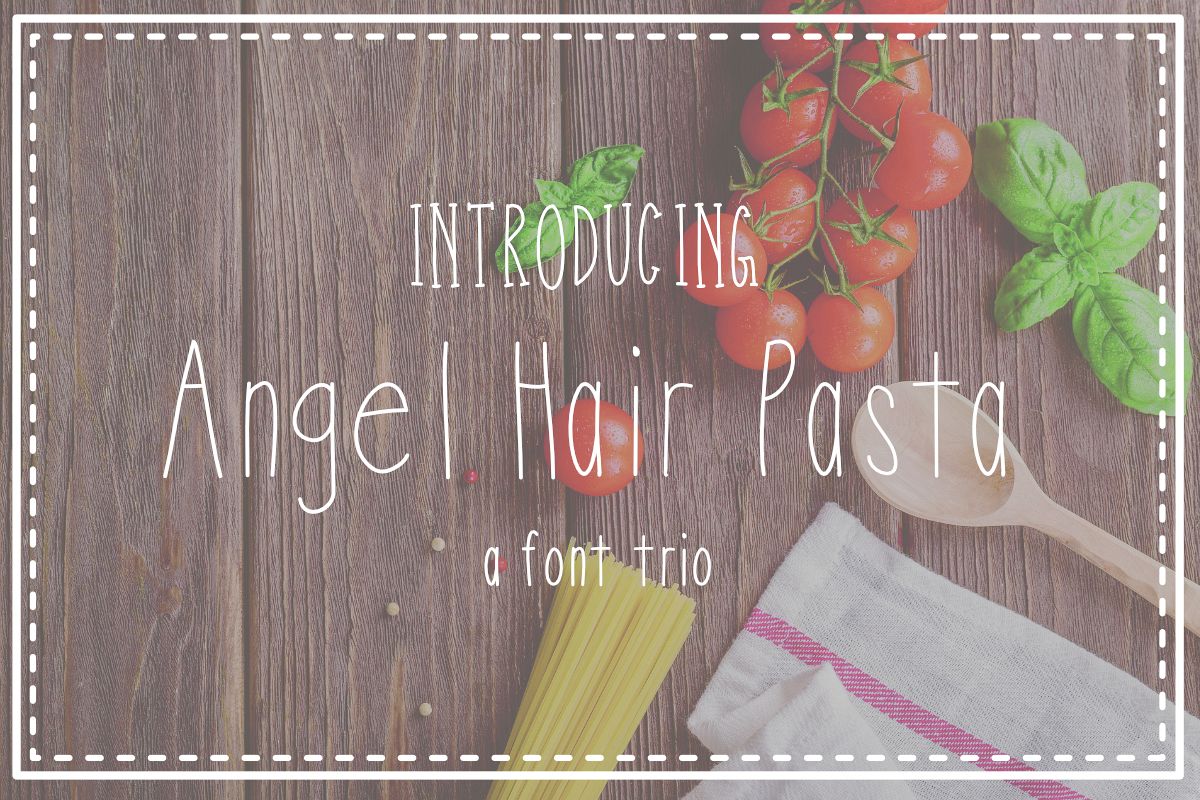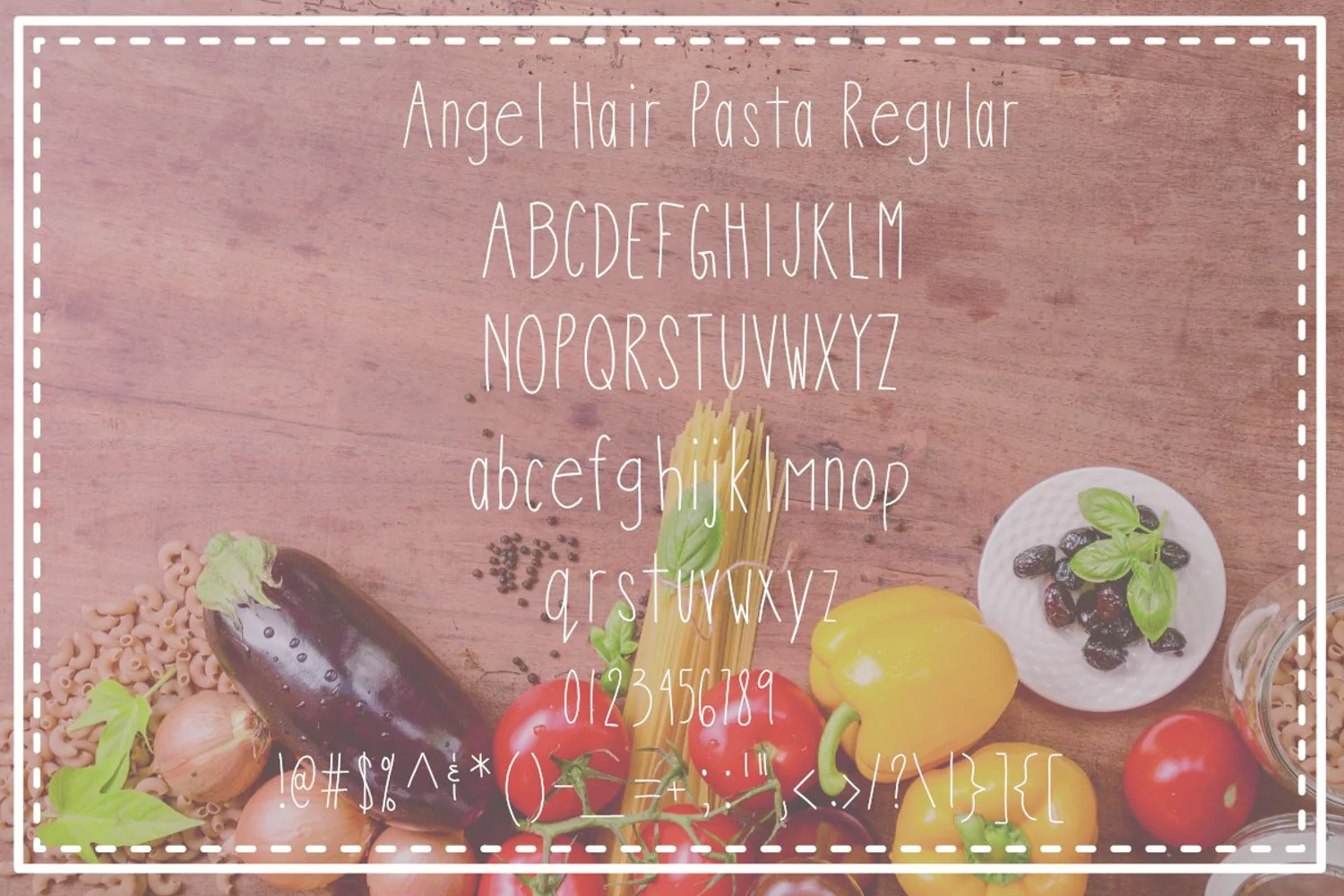
Angel Hair Pasta Font Trio
by Nicole Forbes Designs
The perfect thin sans serif/serif font family for branding, invitations, & social media post.
Comes with 3 styles:
Reg.
Bold
handwritten